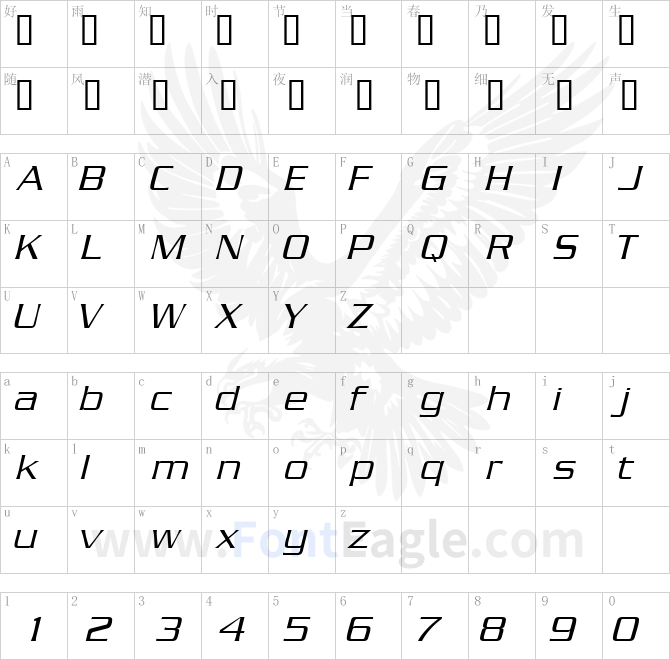
- Font name:BoostLightSSi
- Font Subfamily ID:Macromedia Fontographer 4.1 BoostLightSSi Italic
- Font Full Name:BoostLightSSi Italic
- Postscript:BoostLightSSiItalic